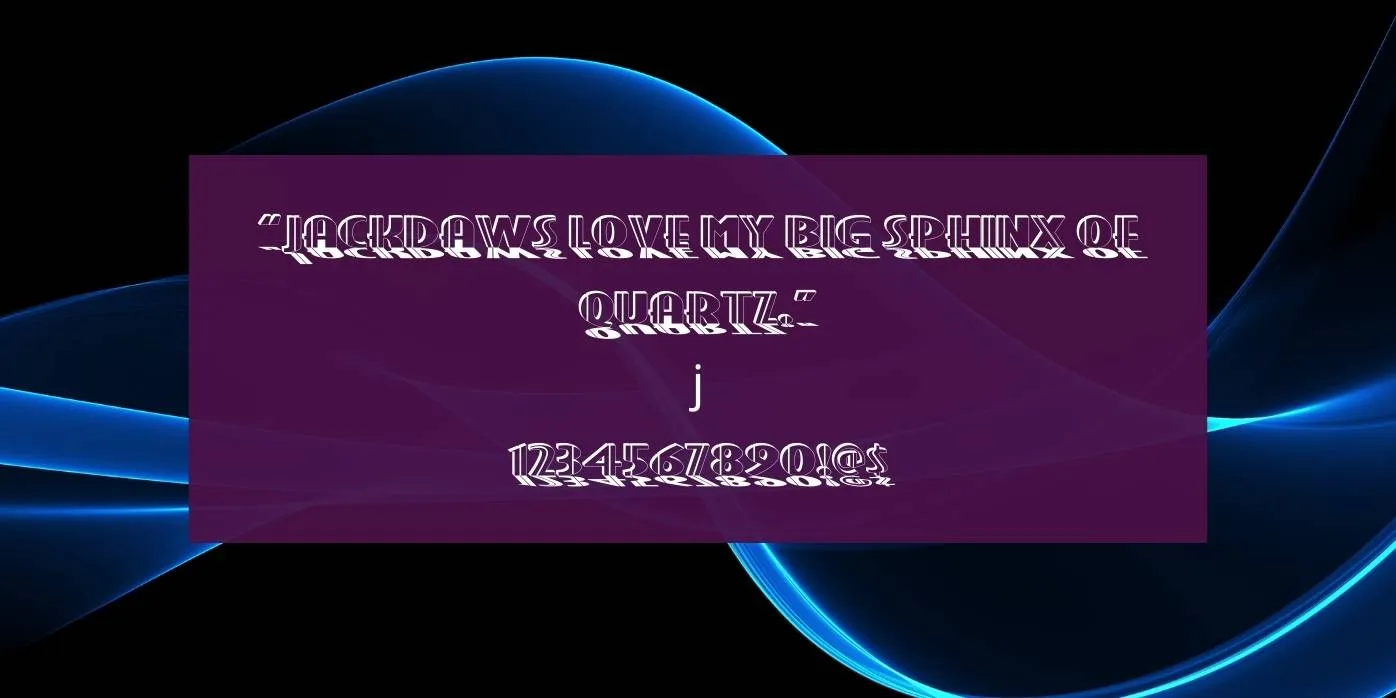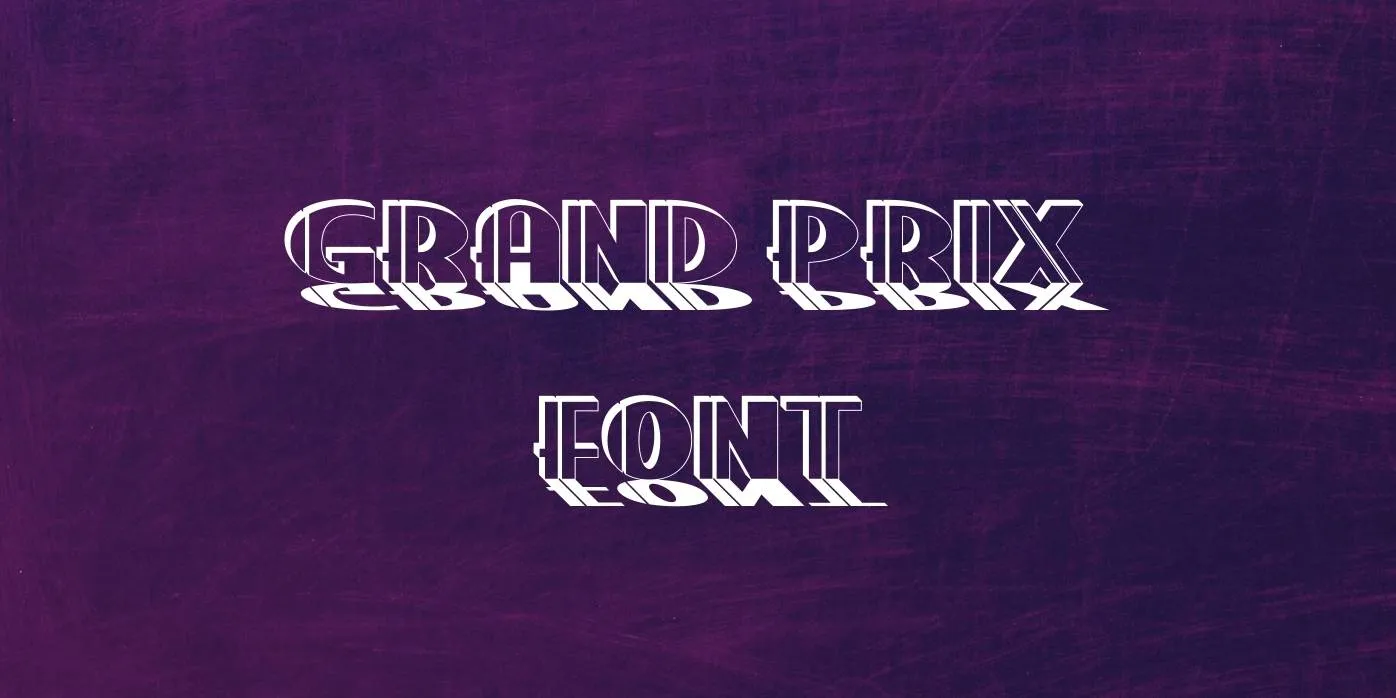
Grand Prix Font
Grand Prix Font is a fancy typeface created by Oliver Baker in 2018. The font is based on the lettering used on Formula 1 cars of the 1950s and 1960s. This Font was created to give a feeling of speed and movement and features sharp angles and curves. The font is available in two styles, Regular and Bold Moreover, you can also try cubano Font for your logos and other typography designs as well.
This font is also widely used in photoshop and Canva software which helps you to make designs. The font pays tribute to this iconic era of racing with its sharp angles and curves. The Regular and Bold styles give you the ability to create a range of looks, from vintage to modern design.